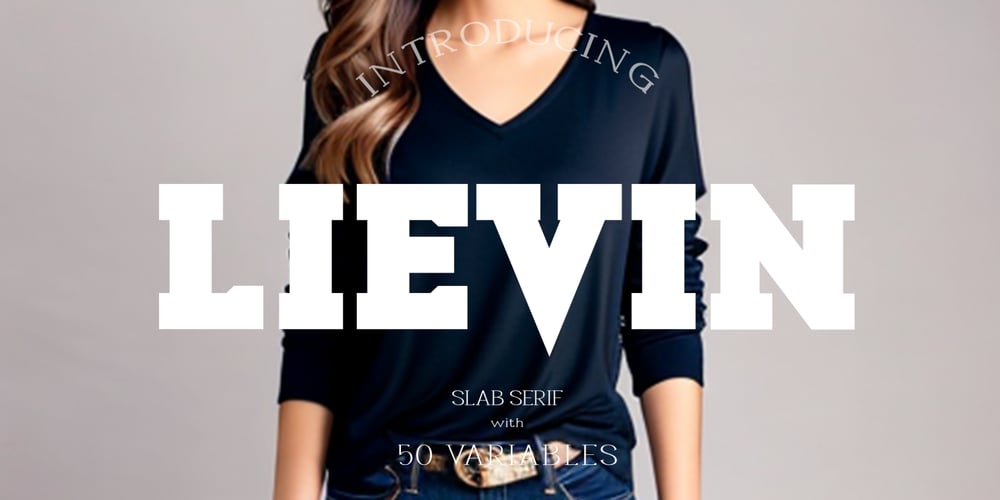
Lievin
Lievin font
Lievin Font Family was designed by Mohamad Farhan Ramadhan and published by Mofr24. Lievin contains 51 styles and family package options. Lievin is an exceptional slab serif font that stands out for its simplicity, clean lines, and captivating elegance. What sets it apart is its unique ability to effortlessly adapt to diverse design needs, making it a versatile choice for any project. With an impressive range of 50 variable styles, ranging from delicate thin to bold and massive black, Lievin caters to a wide array of typographic demands. Its versatility makes it perfect for various applications such as posters, marketing materials, logotypes, headlines, books, magazines, and more.One of the defining features of Lievin is its impeccable balance of classic charm and contemporary appeal. Its sleek and refined aesthetic adds a touch of sophistication to any design. The font’s exceptional legibility ensures that the message is conveyed with clarity and impact.Lievin pairs harmoniously with a range of typefaces, making it an ideal choice for combination and layering. It complements sans-serif fonts, such as Helvetica or Futura, creating a visually dynamic and engaging typographic composition.Beyond its visual appeal, Lievin boasts an extensive character set, providing support for multiple languages and typographic features. This allows designers to express their creativity and accommodate different linguistic requirements.The design concept of Lievin is rooted in the desire to create a timeless and versatile slab serif font that would seamlessly integrate into modern design practices. Its clean lines and balanced proportions ensure legibility across various media and sizes, while its elegant charm adds a touch of sophistication.Lievin is the result of a meticulous creative process aimed at delivering a font that captures attention and makes a lasting impression. It combines the best of traditional and contemporary design elements, offering a fresh take on slab serif typography.As a modern typeface, Lievin is an original creation, not based on any historical design or revival. It embodies a contemporary interpretation of slab serif fonts while incorporating functional aspects that cater to the needs of today’s designers.